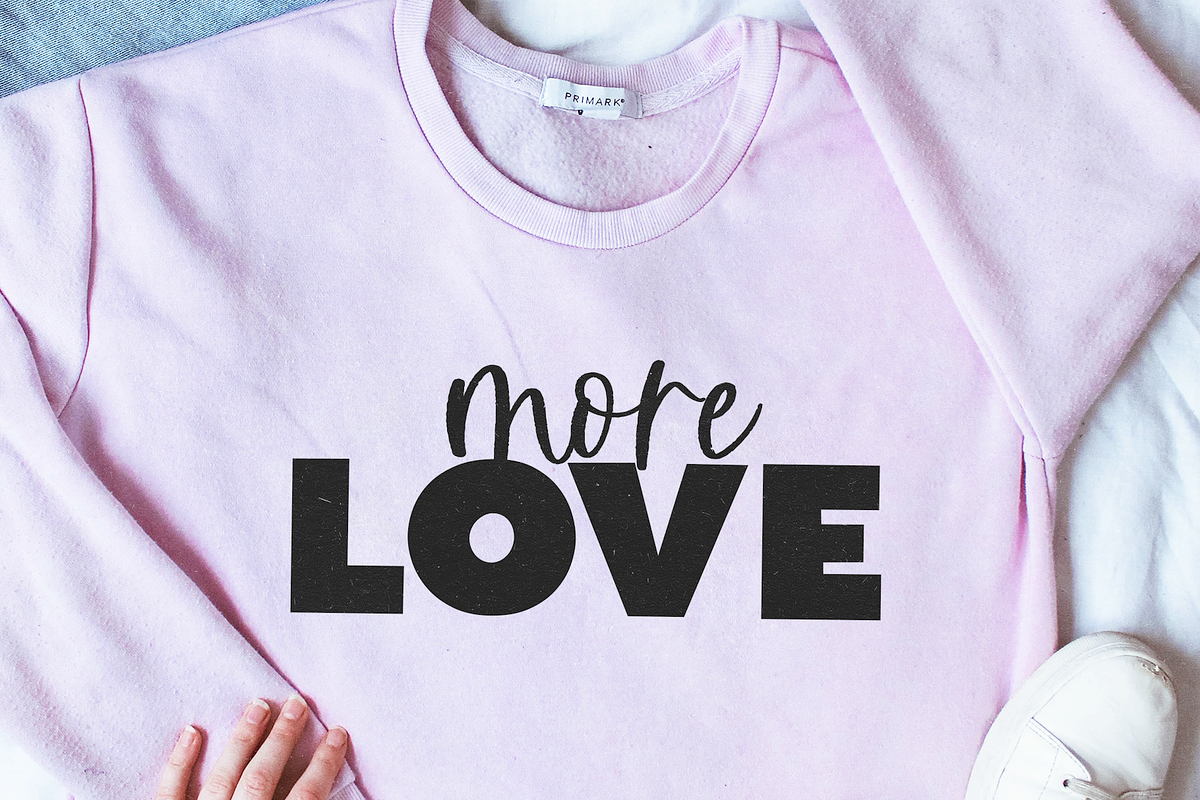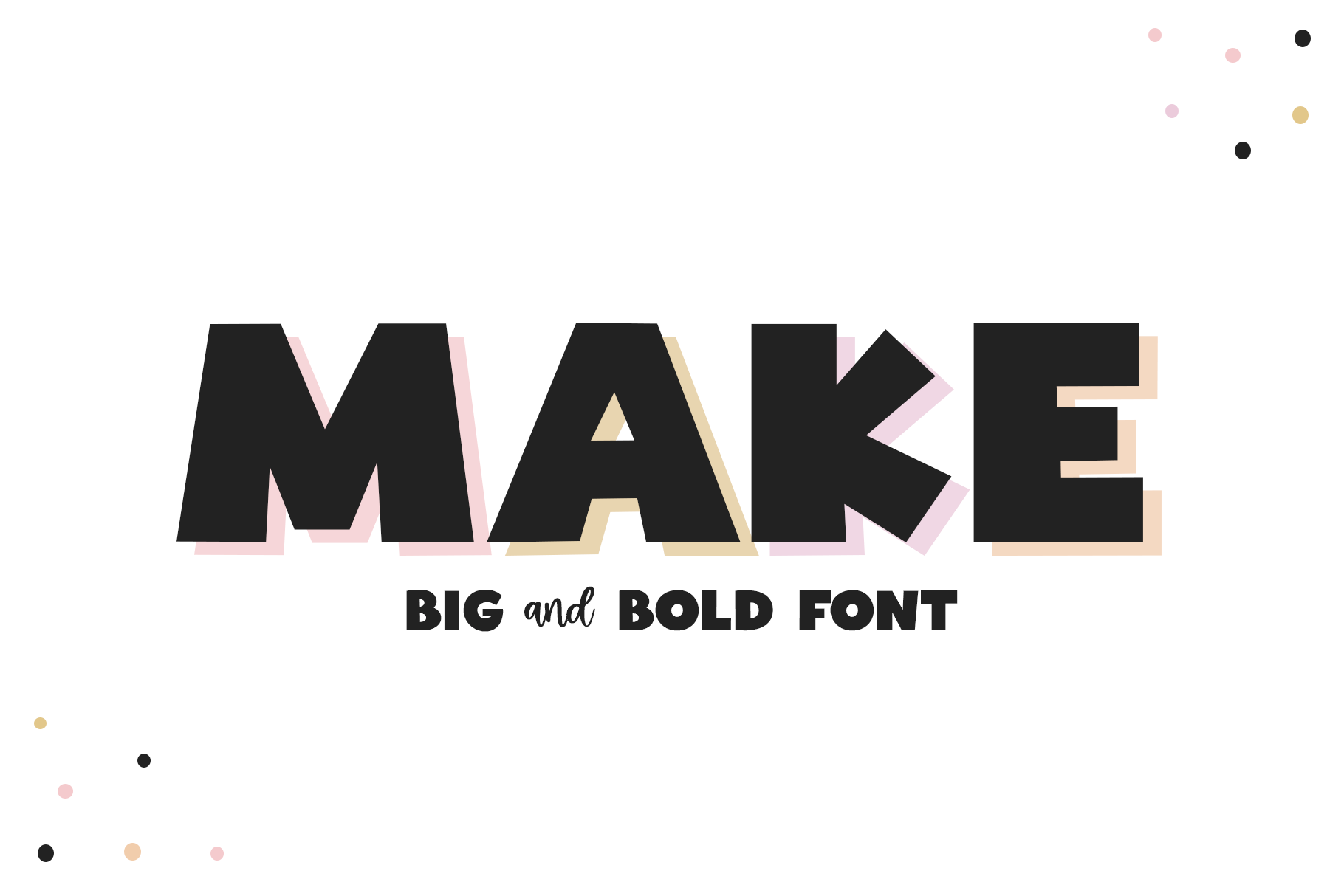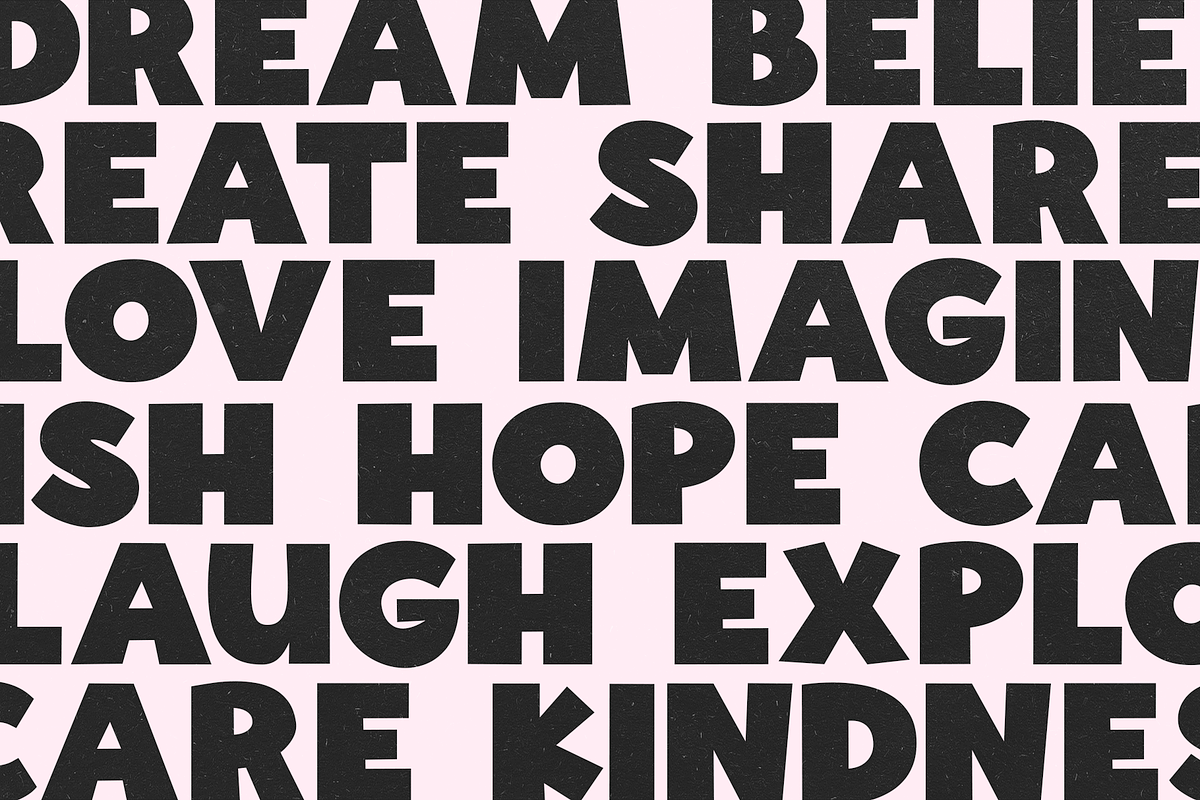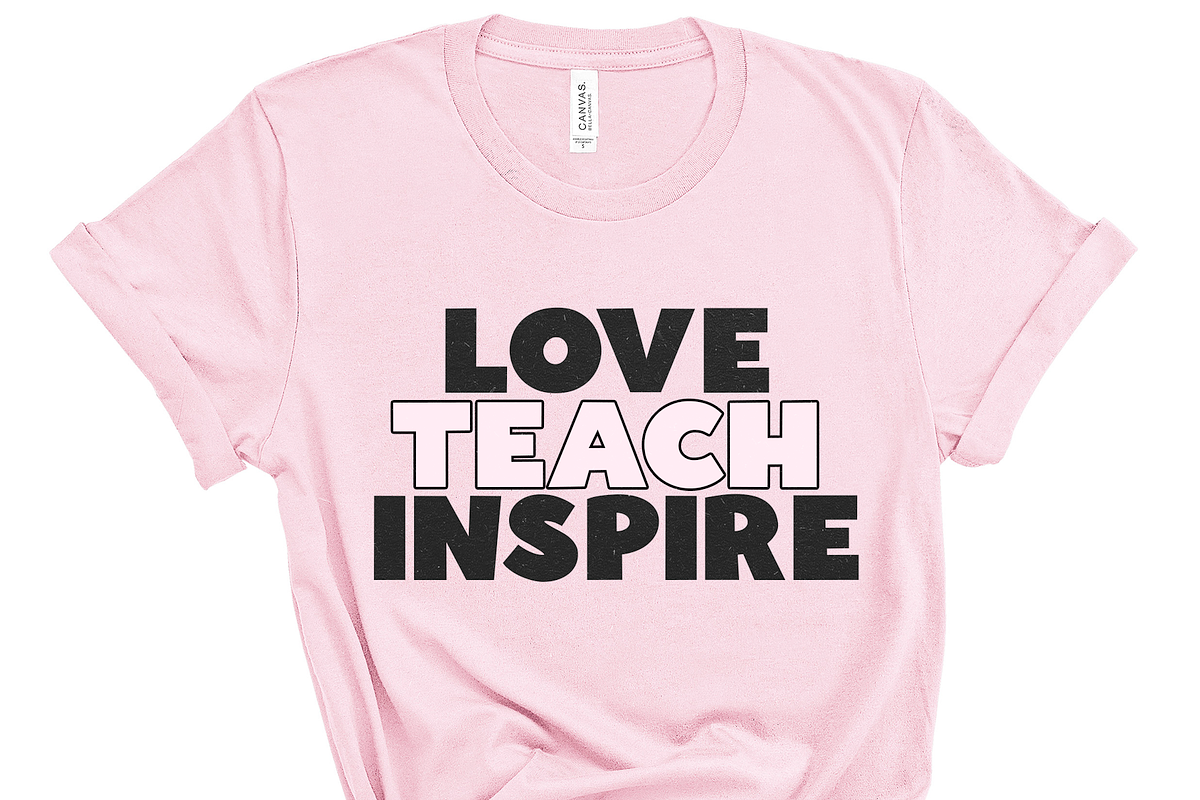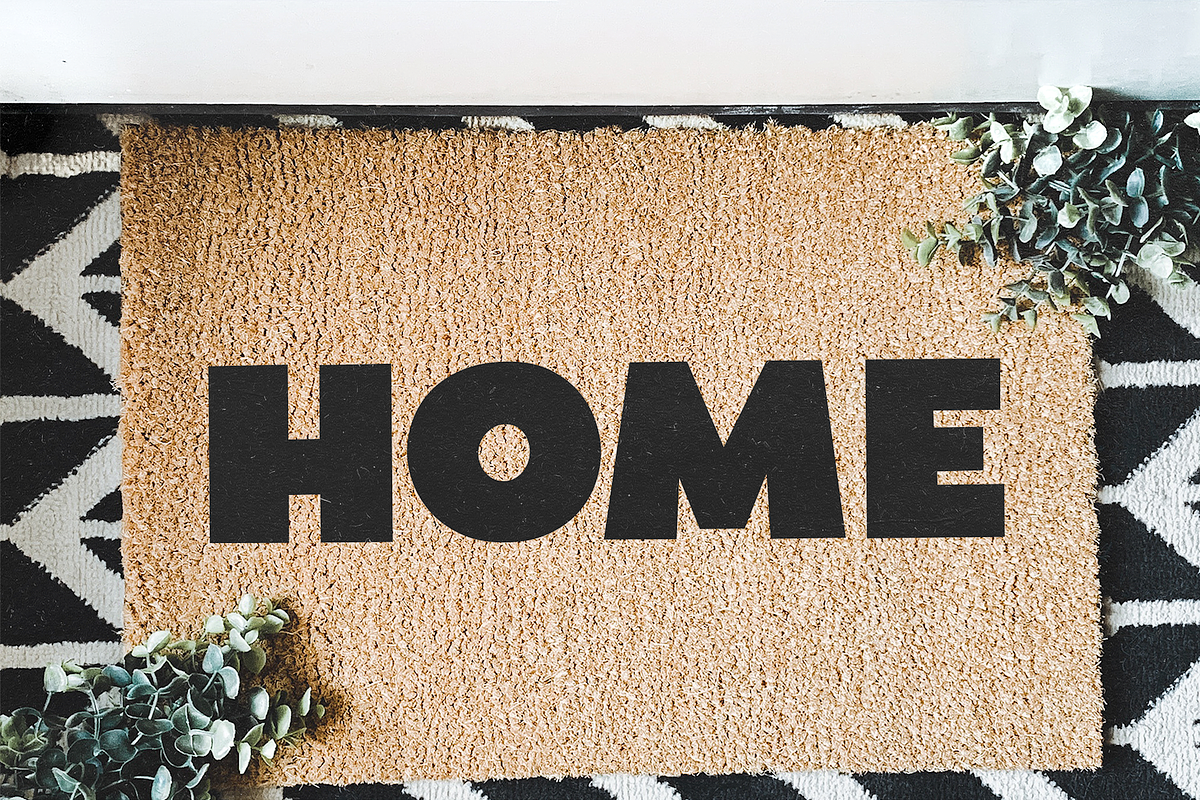
Make | Bold Handwritten Font
Make is a big and bold handwritten font.
This font is perfect for your craft projects, branding, shirts, logos, stickers, procreate and more!